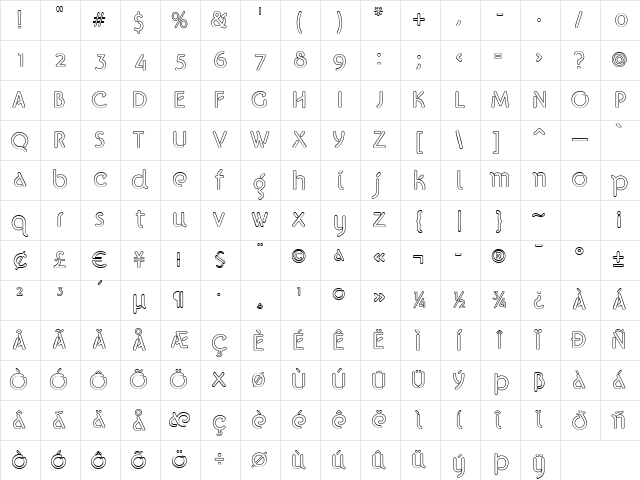
Complete Gelato Regular Outline glyph index. Displaying only characters natively supported by Gelato Regular Outline font.
Gelato is built around its visual character rather than neutral utility - its distinctive forms are designed to make an impression at display sizes.
Font Pairing: Pair with a clean neutral sans-serif for body copy to let Gelato's character lead without overwhelming the composition.
Pro Tip: Use Gelato exclusively at display sizes - it was designed to be seen, not read at length. Let a neutral companion handle body copy.